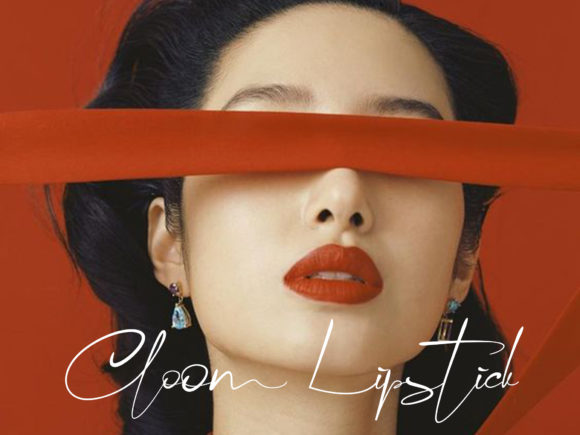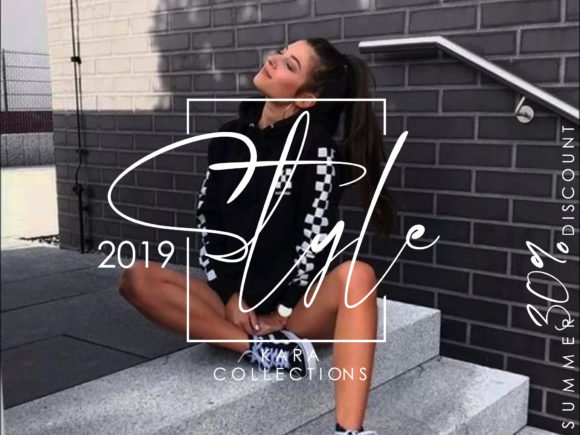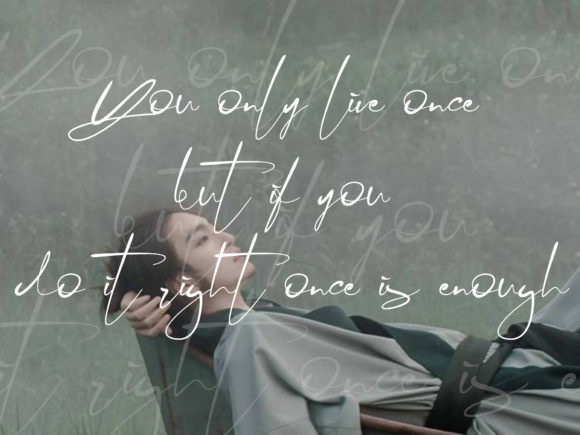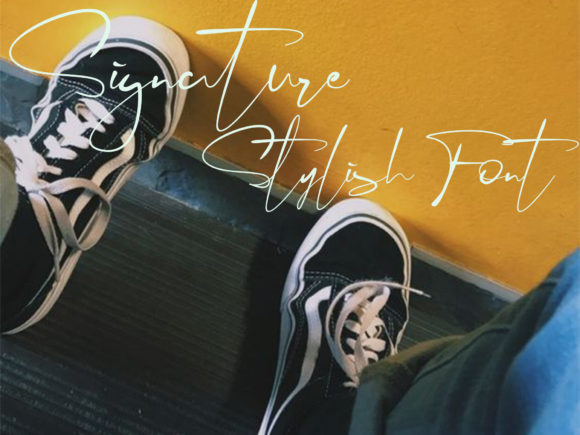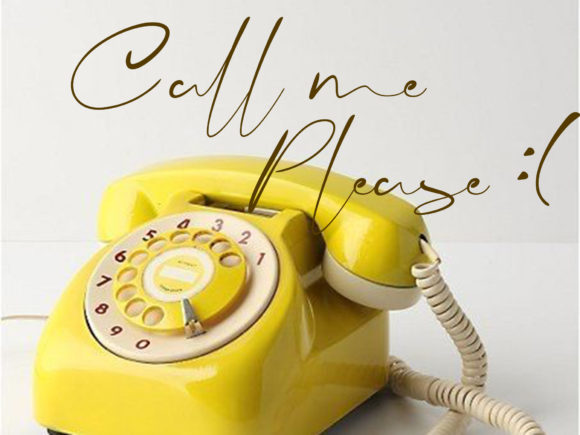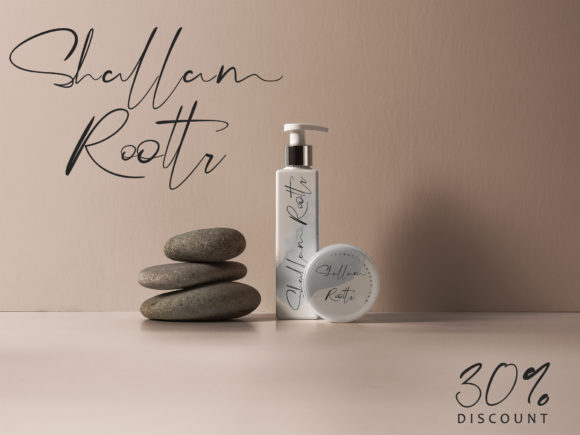
Introduction to Jalitta Font
Have you ever been working on a creative project, pouring your heart and soul into every detail, only to feel like something’s missing? You’re not alone. For designers and crafters alike, finding the perfect font can make all the difference between a good project and a great one. That’s where the Jalitta Font comes in – a stylish modern calligraphy font that adds a romantic touch to any crafting project.
Whether you’re designing a wedding invitation, a birthday card, or a social media post, the Jalitta Font is a valuable design resource that can elevate your work to the next level. Its casual chic flair and high-quality design make it a must-have for any designer looking to add a touch of elegance to their projects.
Key Features of Jalitta Font
- High-quality font with a unique, creative design perfect for various projects, including graphic design, web design, and digital art.
- Includes a range of styles and weights, offering flexibility and versatility for various design projects and creative applications.
Honest Review: Jalitta Font
As a designer, I’m always on the lookout for high-quality design resources to elevate my creative projects. Recently, I stumbled upon the Jalitta Font, and I’m excited to share my honest review with you.
What works well: ✨ The Jalitta Font is incredibly versatile, with a modern and sleek design that makes it perfect for a wide range of creative projects. I love how it looks great with both transparent backgrounds and solid colors. The font is also highly customizable, making it easy to adjust to different design needs.
- ✨ High quality: The font is designed with precision and attention to detail, resulting in a high-quality output that looks great on any device.
Any limitations: ⚠️ While the Jalitta Font is an excellent addition to any designer’s toolkit, it’s worth noting that it may not be suitable for all design projects. The font is best used for modern and minimalist designs, and it may not be the best choice for more traditional or ornate projects.
Tips for Getting the Most Out of Jalitta Font
For the best results, use Jalitta Font in conjunction with a high-quality design resource. Experiment with different font sizes, styles, and colors to achieve the desired look. You can also combine Jalitta Font with other design elements to create a unique and eye-catching design.
Jalitta Font is perfect for a variety of creative projects, including logos, graphics, presentations, and documents. Its transparent background makes it ideal for use in digital designs, while its high-quality design ensures it looks great in print.